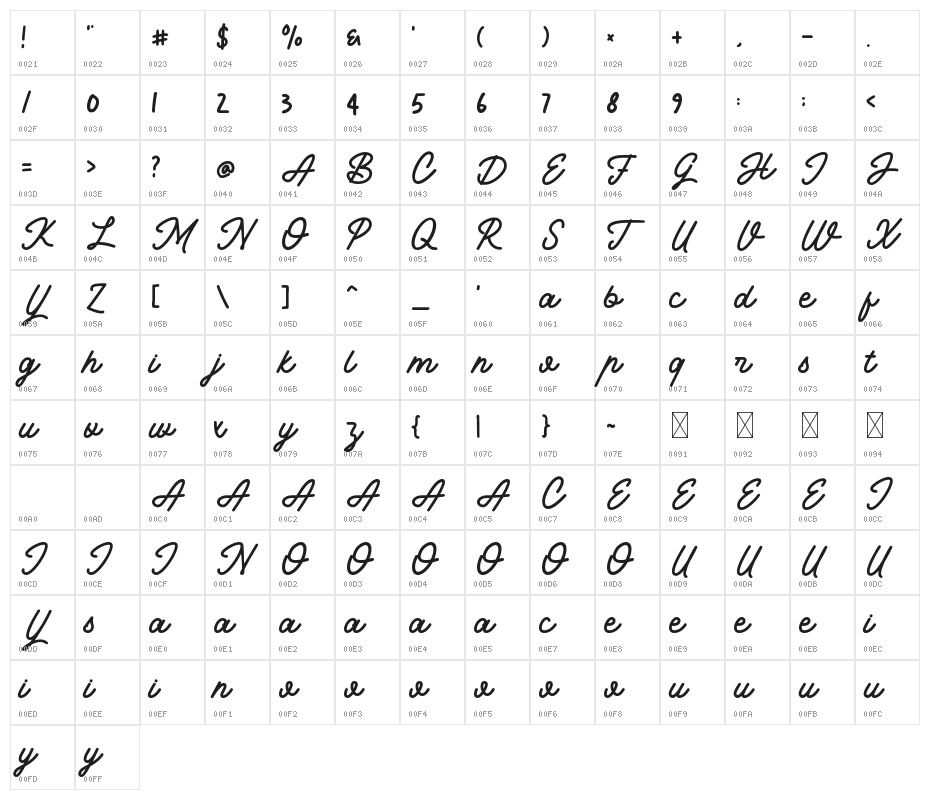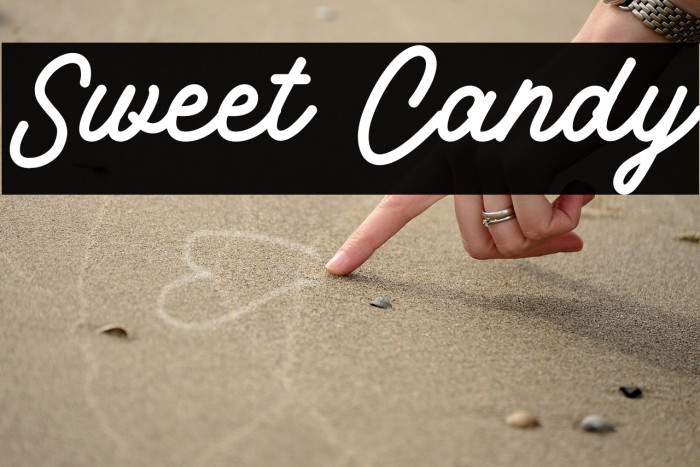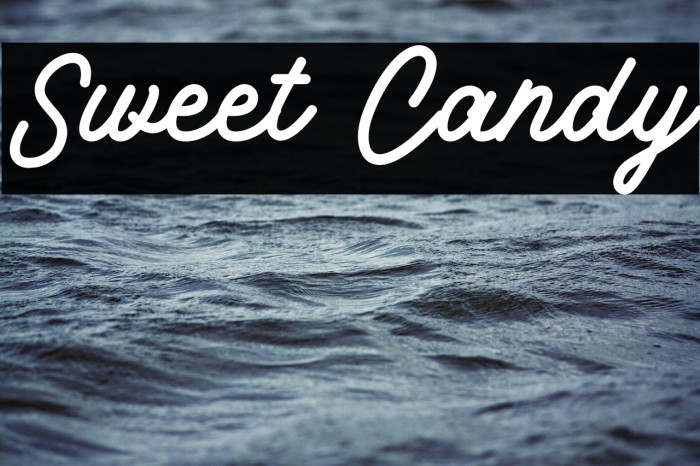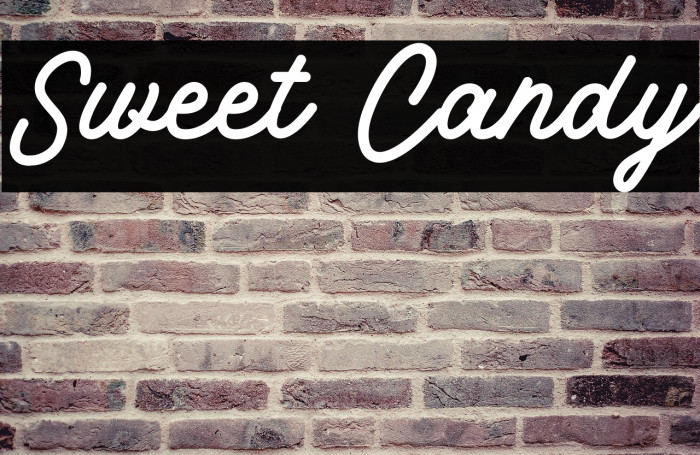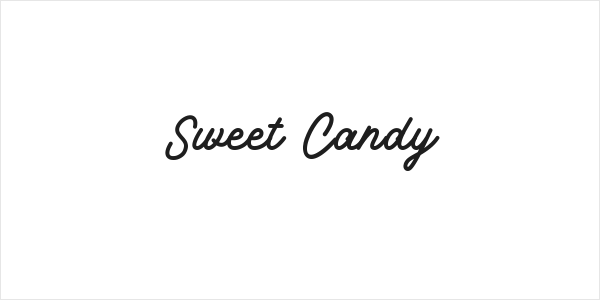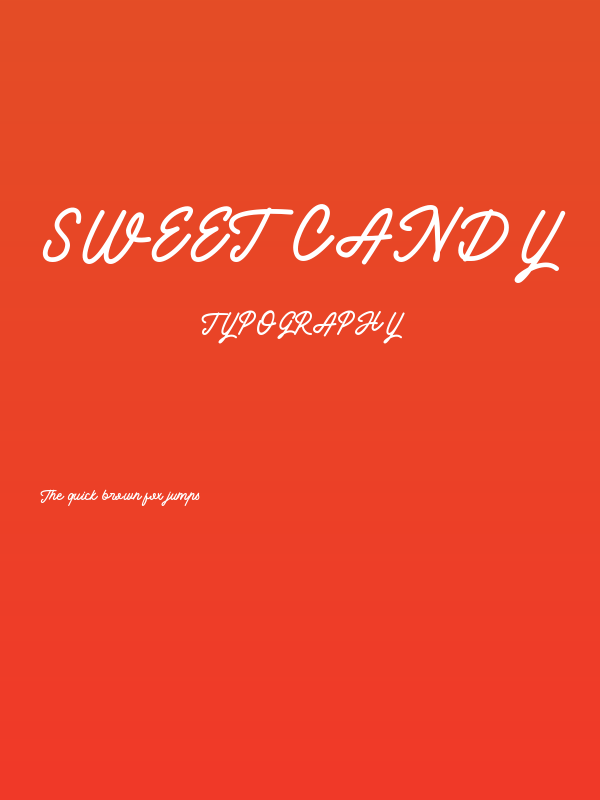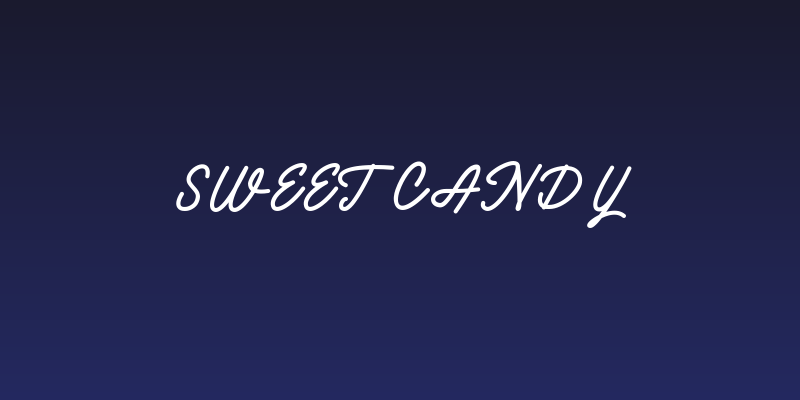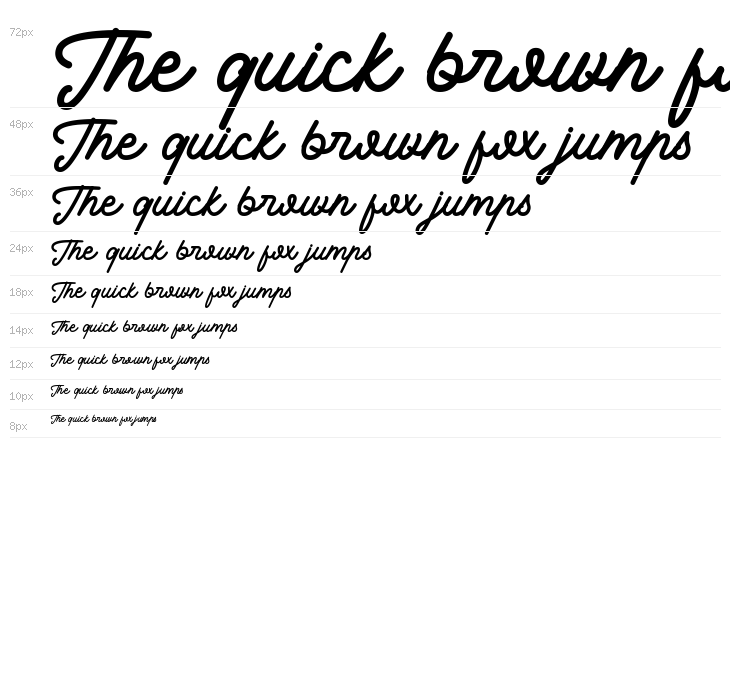
Sweet Candy Font
Sweet Candy Description
This font features a playful and flowing script style, characterized by its smooth, connected letters that mimic a handwritten cursive. The uppercase letters are elegantly looped, while the lowercase letters maintain a consistent flow, creating a harmonious and inviting appearance. The numerals and special characters are crafted with the same fluidity, ensuring a cohesive look across all text elements. The font's design exudes a sense of warmth and friendliness, making it ideal for projects that require a personal touch. Its legibility is maintained despite the decorative nature, thanks to the balanced spacing and moderate stroke contrast.
| Use Case | Logos, Invitations, Greeting Cards |
| Proposed Projects | Ideal for greeting cards, invitations, personal branding, and creative projects that require a warm, personal touch. |